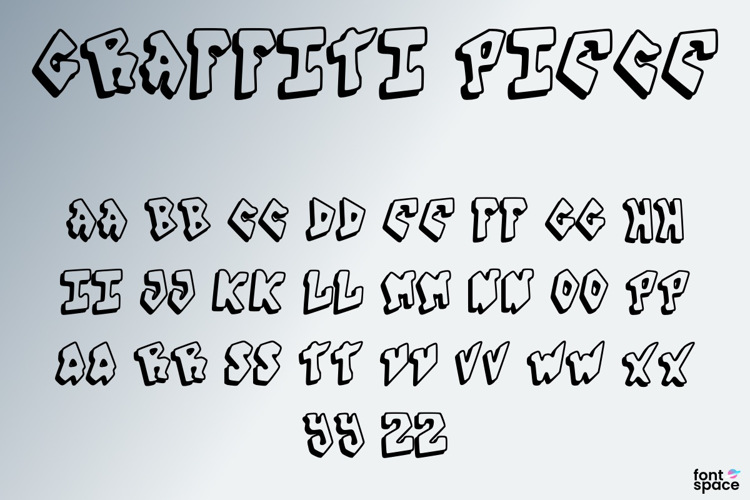
Graffiti Piece Font
A bold graffiti font inspired by full pieces and street burners — packed with style, attitude, and urban flair. Made to stand out in posters, logos, and loud designs.